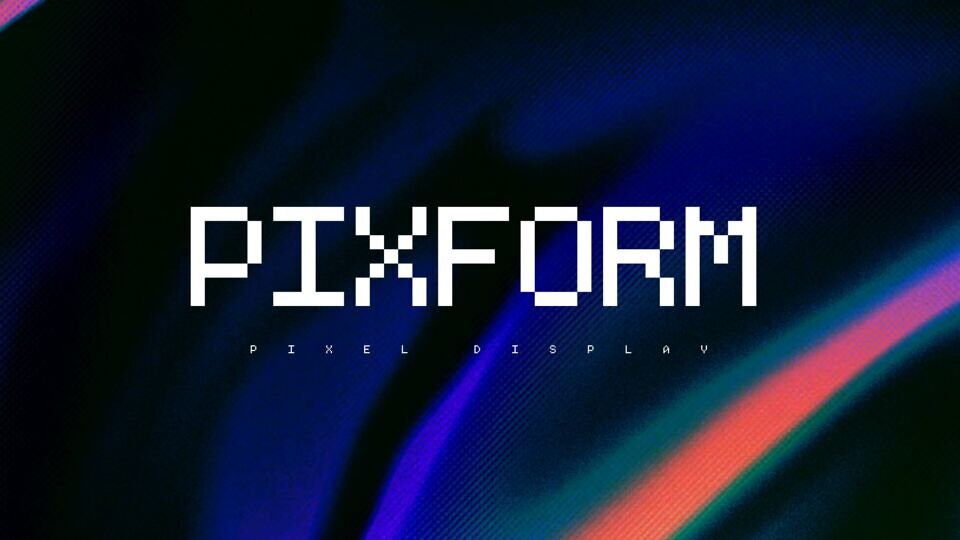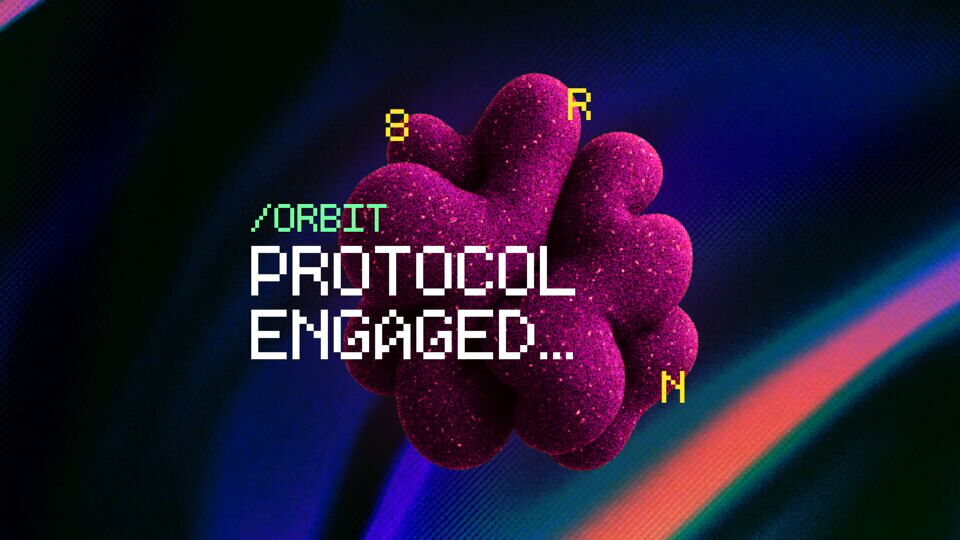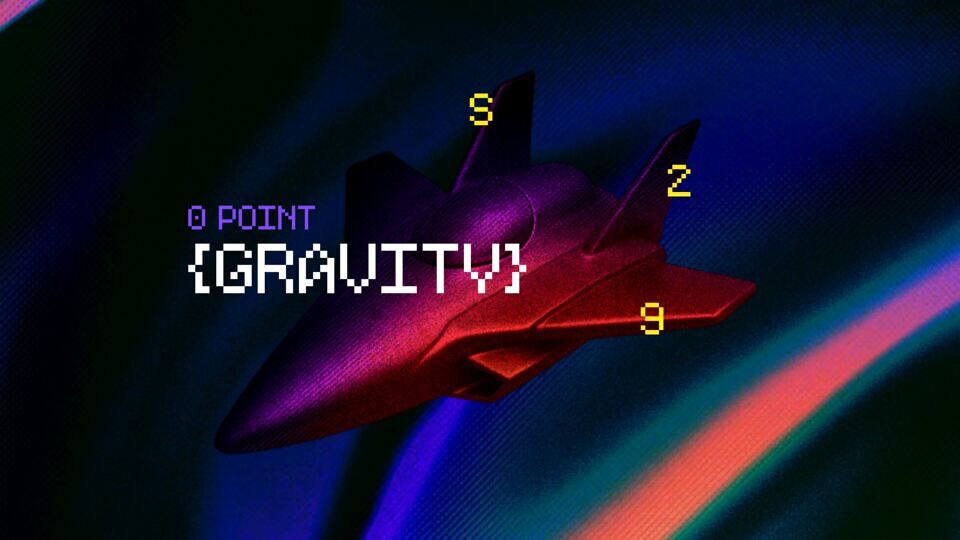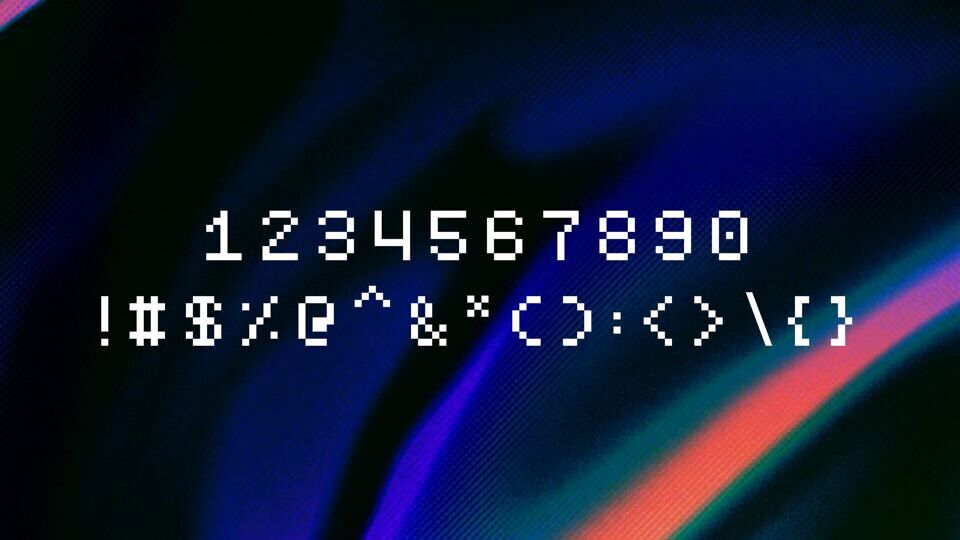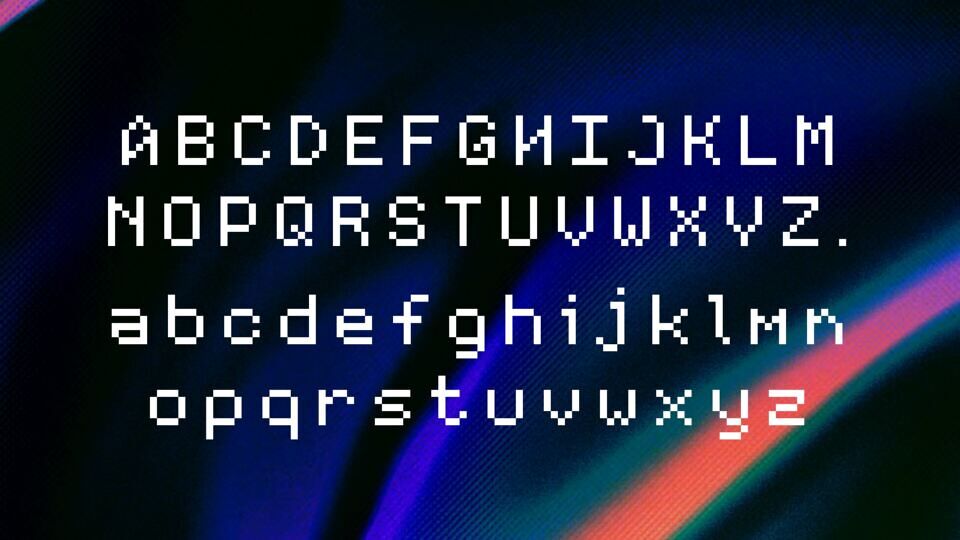
Pixform is a modular, pixel-based typeface crafted for clarity, character, and code. Built on a grid of precision, it brings retro aesthetics into the modern digital canvas — perfect for interfaces, retro games, and minimalist tech branding.